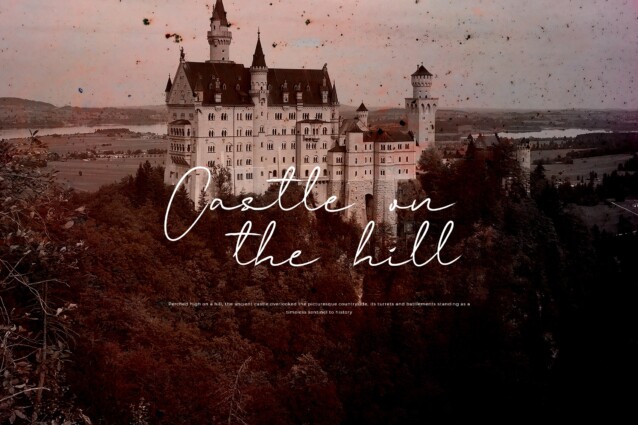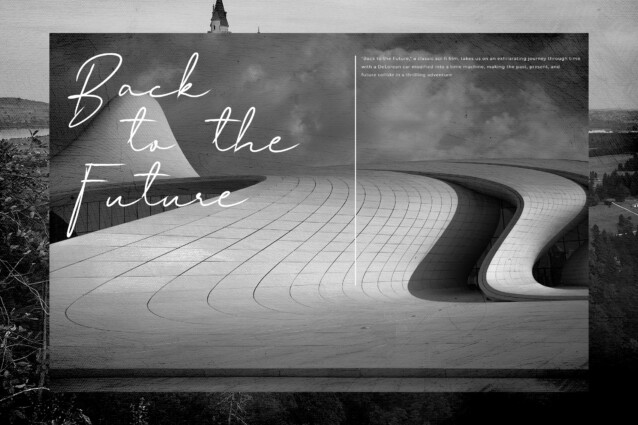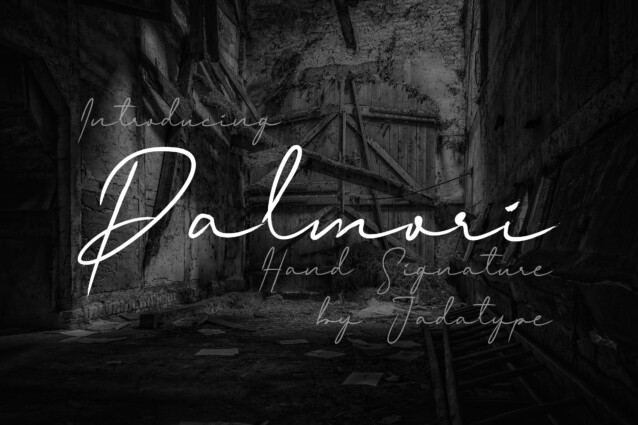
Palmori Font
Palmori Font is a classic modern script font designed by jadatype with a handwritten style that makes the appearance of this font look elegant and stylish. suitable for tshirt, branding, social media, and so on. contains standard English letters, numbers, punctuation, and several accents that support multilingualism.